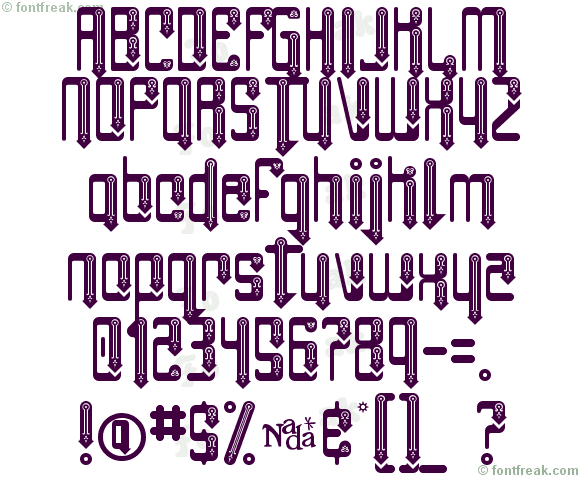
Angie Impressing
Angie Impressing, created by Greywolf Webworks in 1999, is a striking display font that blends creativity with a touch of whimsy. This freeware font features a unique style that stands out with its bold, decorative character design. The stroke weight is consistent throughout, lending a sturdy feel, while the contrast in its forms creates an eye-catching visual appeal. The spacing between characters is well-calibrated, ensuring readability while allowing the intricate details of the font to shine through.
The font is characterized by its playful embellishments, including arrow-like features and floral motifs, making it perfect for a variety of creative projects. Ideal use cases for Angie Impressing include wedding invitations where a fun yet elegant touch is desired, movie posters that require a bold statement, restaurant menus that aim to grab attention, and promotional materials for events that need a lively flair. Its unique design also appeals to graphic designers looking to add originality to their projects, small business owners wanting to create memorable branding, and content creators seeking an engaging visual style for their digital content.
The target audience for this font is diverse, from professional designers to entrepreneurs and creative enthusiasts. Angie Impressing is not just another font; it brings a sense of personality and charm that can elevate any design. Its free availability allows anyone to explore its potential without hesitation. The Angie Impressing font free download option makes it accessible, inviting users to incorporate this distinctive typeface into their creative arsenal. With its rich visual character and versatility, Angie Impressing stands out as a delightful choice for those looking to make a lasting impression.